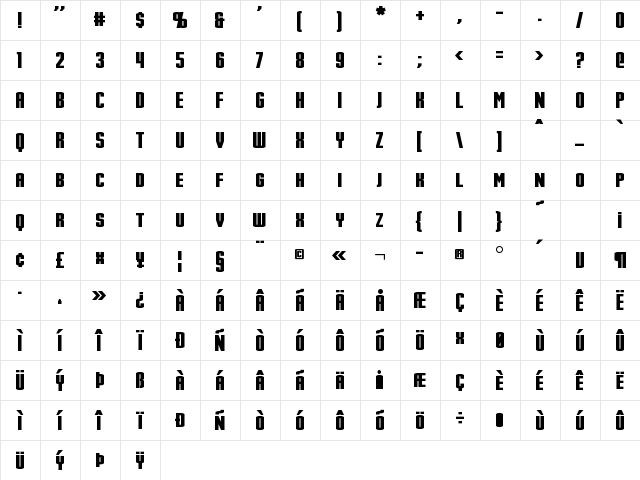
Stark Regular
| Designer | Neale Davidson |
Design Context for Stark Typeface
Stark offers clean, dependable letterforms without strong stylistic allegiance, making it a practical choice for designers who need flexibility.
Pro Tip: Use Stark in both headline and body roles to test its range before committing to a single application.